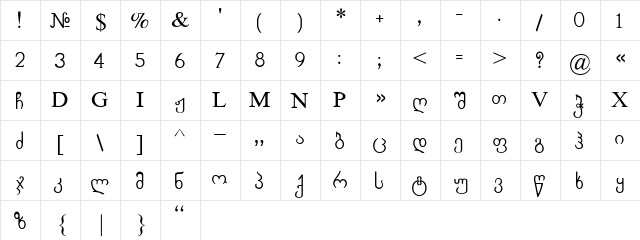
Chveulebrivi TT Regular
Design Context for Chveulebrivi TT Typeface
Chveulebrivi TT offers clean, dependable letterforms without strong stylistic allegiance, making it a practical choice for designers who need flexibility.